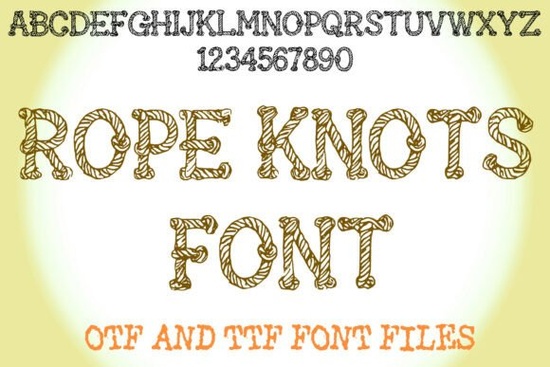
The Rope Knots Font is a unique typeface that brings the look of twisted rope and sailor’s knots to digital design. Its nautical theme makes it ideal for coastal branding, kids’ crafts, pirate party invitations, and sea-inspired decor projects. Whether you're working on a custom logo, a handmade card, or a print-on-demand product, this font adds a tactile, handcrafted feel that stands out.
One of the key strengths of the Rope Knots Font is its versatility. It works well as a display typeface, meaning it’s best used for headlines, logos, and short text blocks rather than long paragraphs. The font’s intricate details make it perfect for adding a nautical touch to any design, whether it's for a beach-themed wedding invitation or a children's book cover.
Designers and crafters often use this font for projects that require a handmade or artisanal look. Its texture and structure give it a 3D appearance that can be enhanced with shadows or gradients. This makes it a great choice for creating eye-catching visuals that stand out in both digital and printed formats.
Small businesses and print-on-demand sellers will find the Rope Knots Font especially useful. It can be used to create custom t-shirts, mugs, and posters with a maritime theme. The font’s unique style helps differentiate products in a crowded market, making it easier to attract customers who are looking for something distinctive.
How to Use the Rope Knots Font in Your Projects
When working with the font, consider the size and spacing. Because of its detailed design, it may not work well in small sizes. Larger text ensures that the knots and twists are visible and readable. You can also experiment with different colors and backgrounds to highlight the font’s texture.
Best Practices for Nautical-Themed Designs
- Pair it with simple fonts: Use a clean, sans-serif font for body text to balance the complexity of the Rope Knots Font.
- Use it for headlines: The font shines when used in titles, headings, or logos where it can be displayed prominently.
- Experiment with textures: Adding a background texture or gradient can enhance the 3D effect of the font.
If you're new to using decorative fonts, start with a small project to get comfortable with how the Rope Knots Font looks in different contexts. You can also look at examples of similar fonts to see how they’re used in real-world designs.
Whether you're a designer, crafter, or small business owner, the Rope Knots Font offers a fresh and stylish way to add a nautical flair to your work. Its unique design and easy-to-use format make it a valuable addition to any creative toolkit.
Take a closer look at the Rope Knots Font and see how it can bring a touch of the sea to your next project. With its distinctive style and practical use, it’s a great choice for anyone looking to add a unique, handcrafted element to their work.